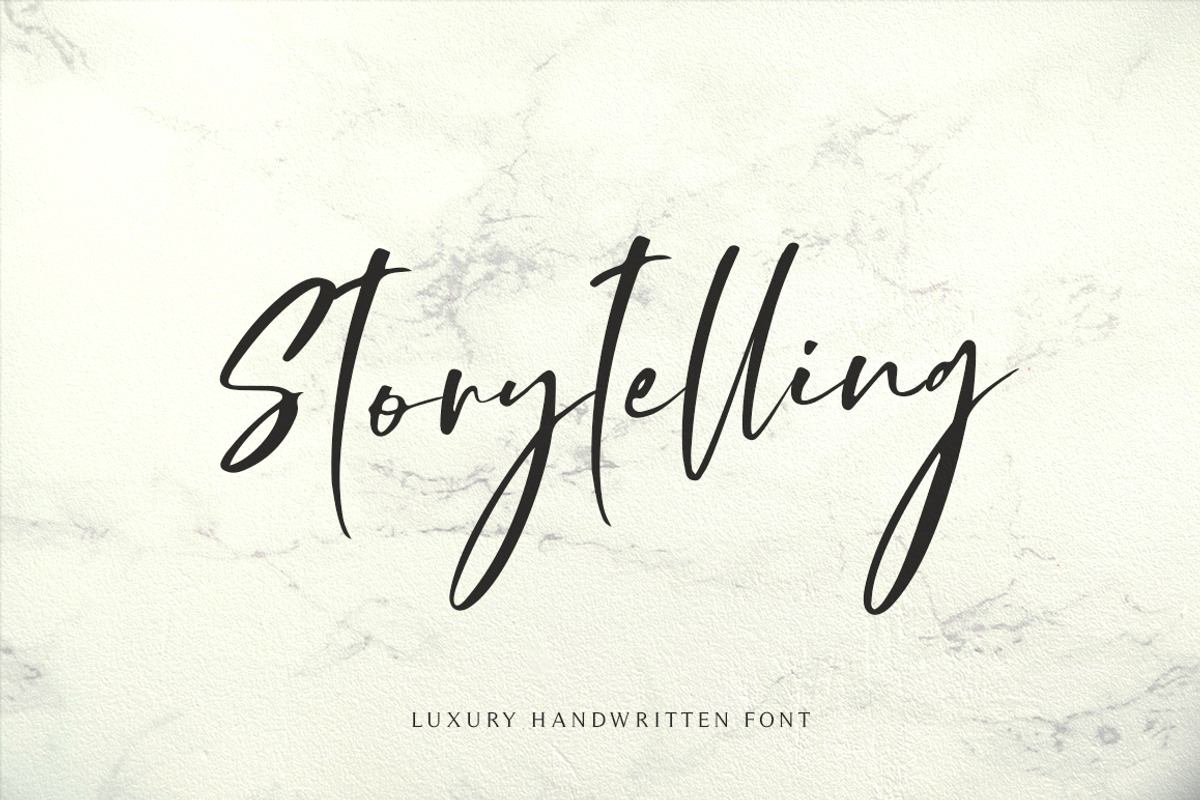
Storytelling - Modern Calligraphy Free Download
Storytelling - Modern Calligraphy Font Free Download
Storytelling - Modern Calligraphy Font Free Download is a beautifully flowing typeface designed to bring elegance, emotion, and personality to your creative projects. Inspired by classic calligraphy with a modern twist, this font is perfect for wedding invitations, branding, greeting cards, and high-end product packaging. Its graceful curves and varying stroke weights make it look as if it were written by hand with a fine-tipped pen.
The charm of Storytelling - Modern Calligraphy Font Free Download lies in its romantic, handwritten feel that adds a touch of authenticity to any design. Whether you're creating a heartfelt quote or a stylish logo, this font helps tell your story with beauty and flair.